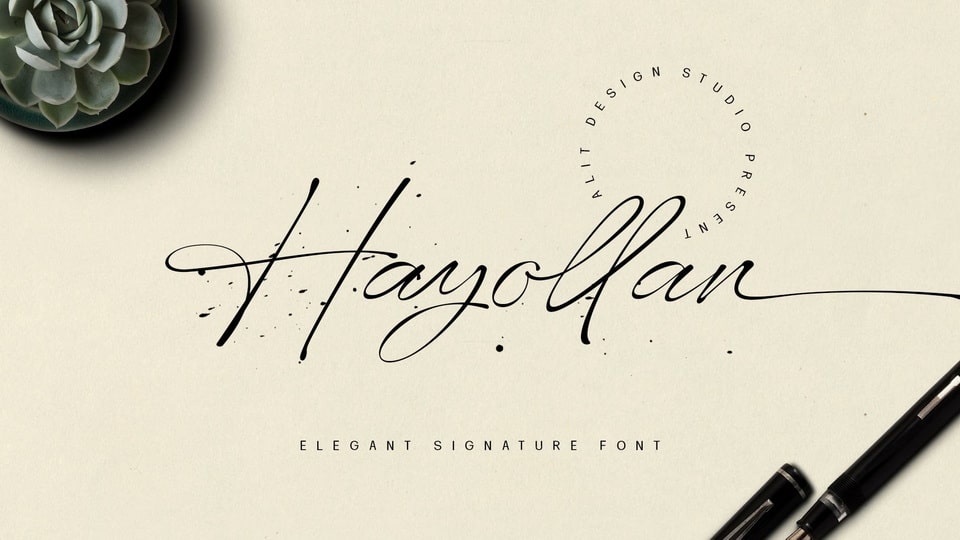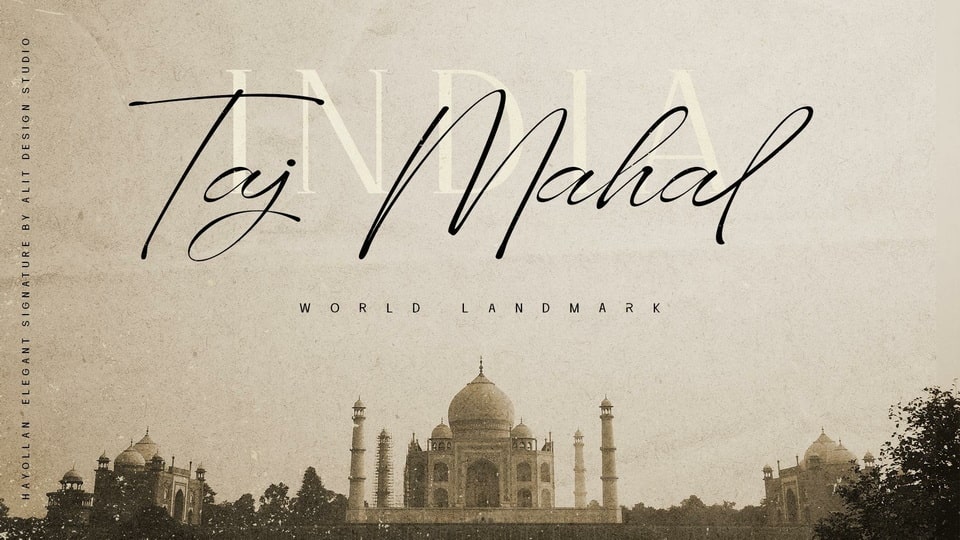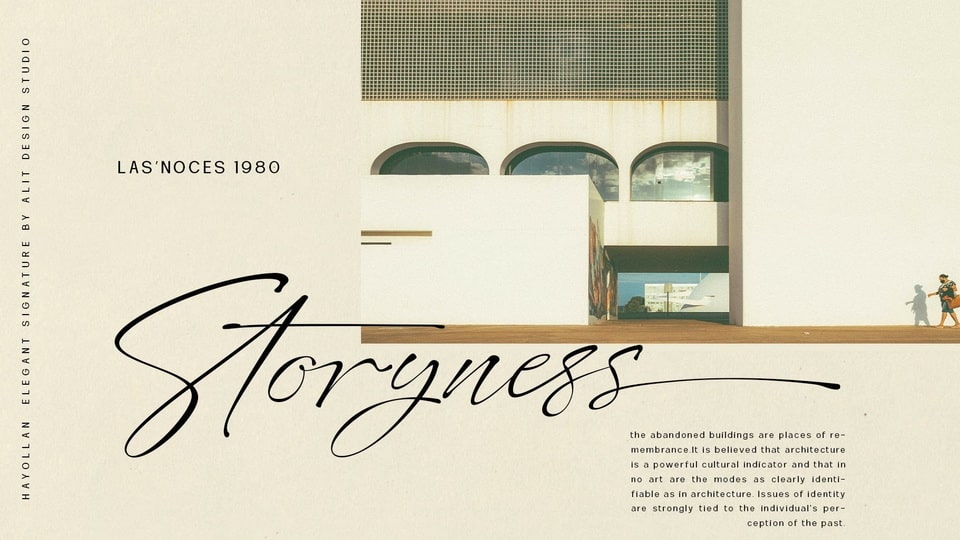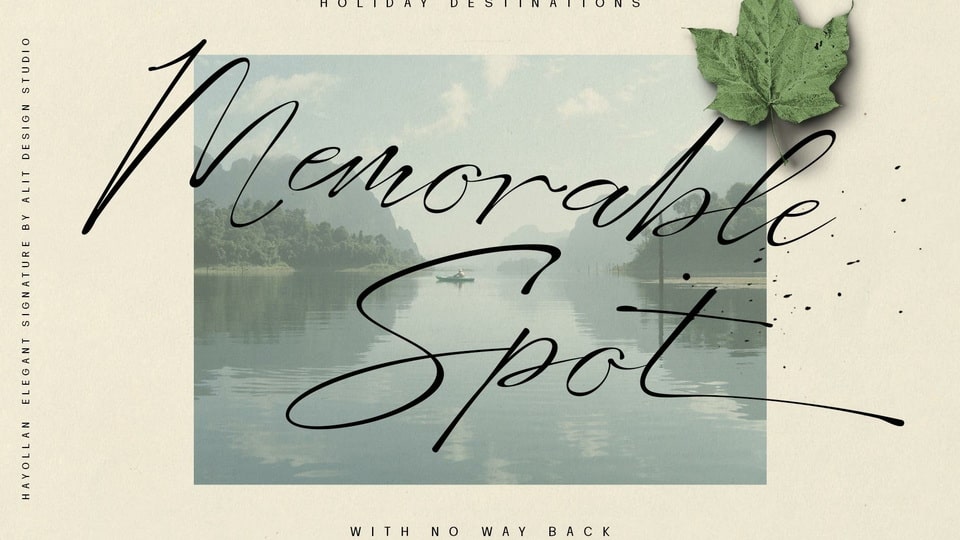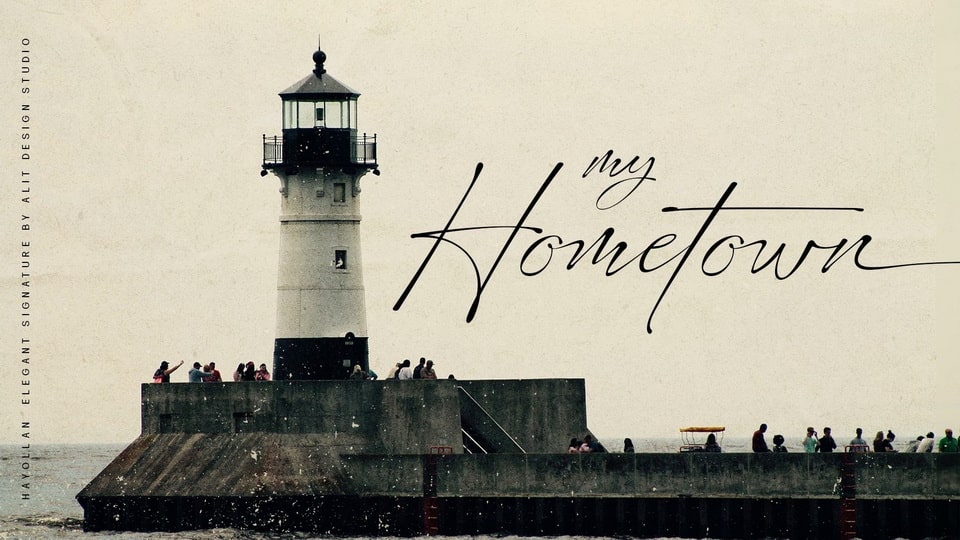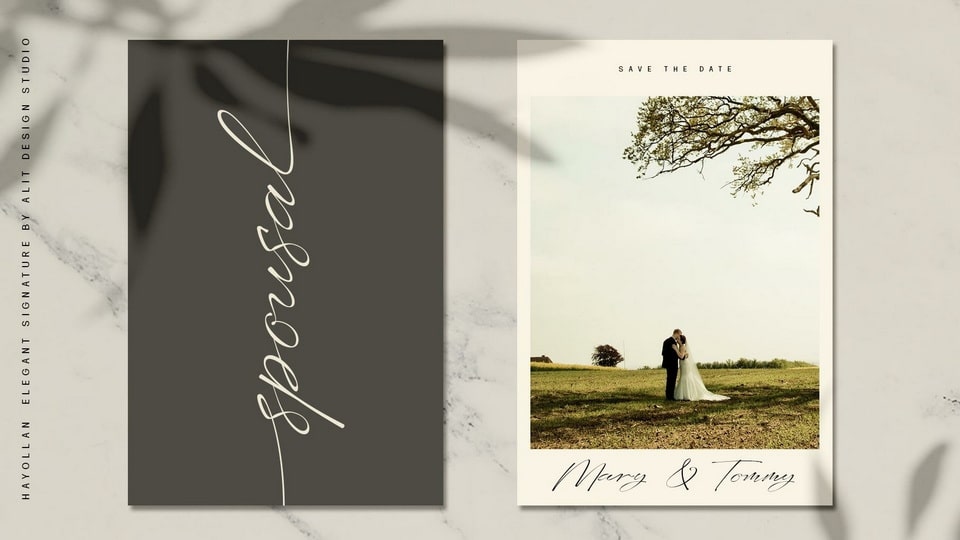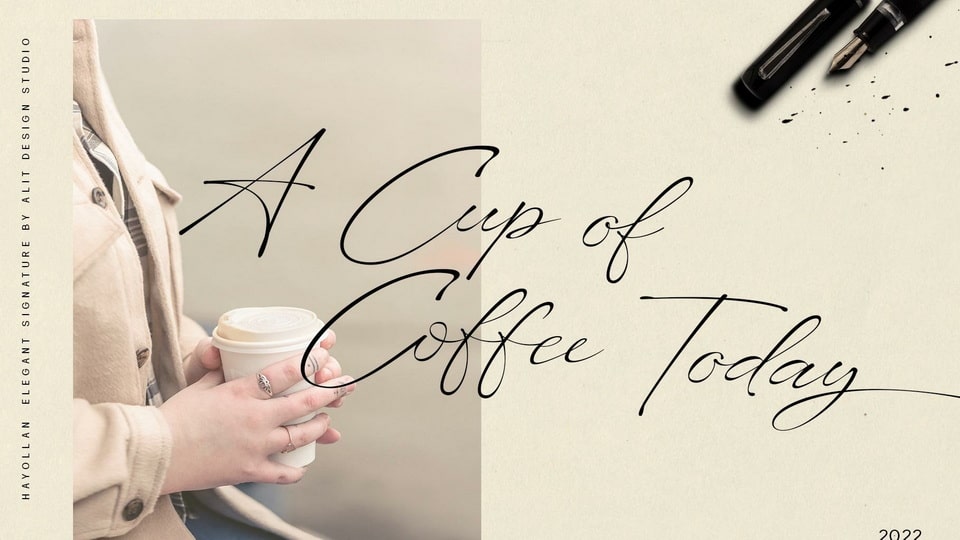
Hayollan is a signature script font inspired by spontaneous and dynamic signature strokes with an ink texture that makes the font look real. It looks unique and charming and makes designs using the font look more prominent and cool.
Hayollan font is perfect for magazine cover designs, brochures, flyers, Instagram ads, Canva design and so on with unique and modern concepts.